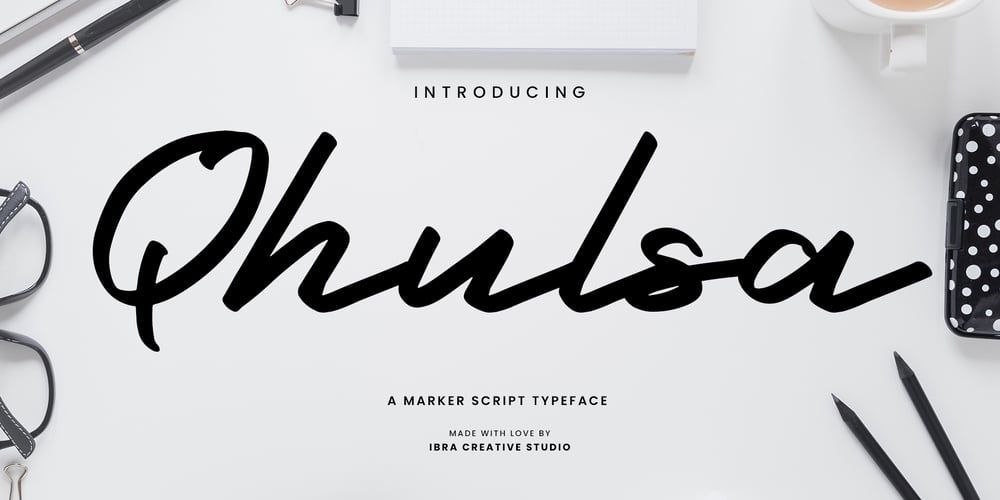
Qhulsa Font Family was designed by Roisatul Azizah and published by IbraCreative. Qhulsa contains 1 styles and family package options. Qhulsa – A Marker Script TypefaceQhulsa, a captivating marker script typeface, seamlessly combines the organic charm of hand-drawn strokes with the precision of typography. Each letter in Qhulsa is a testament to the fluidity and expressiveness of a marker, creating a distinctive and dynamic visual language. With an effortless flow and stylish flair, this typeface brings an authentic handcrafted feel to any design project. Qhulsa’s characters dance across the page with a lively energy, making it an excellent choice for those seeking a casual yet stylish aesthetic. Whether used for branding, invitations, or creative displays, Qhulsa injects a sense of personal touch and creativity, transforming text into a visual journey that captures the free-spirited essence of handwritten expression.Qhulsa is perfect for branding projects, logo, wedding designs, social media posts, advertisements, product packaging, product designs, label, photography, watermark, invitation, stationery, game, fashion and any projects.Fonts include multilingual support for; Afrikaans, Albanian, Czech, Danish, Dutch, English, Estonian, Finnish, French, German, Hungarian, Italian, Latvian, Lithuanian, Norwegian, Polish, Portuguese, Slovak, Slovenian, Spanish, Swedish.